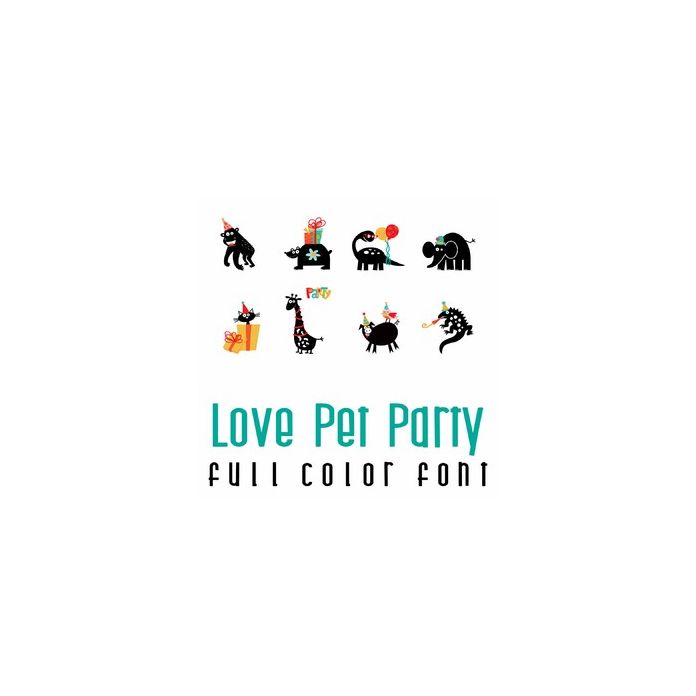
This fun full color doodlebat font features 26 party animals ready to celebrate. Perfect for cards, crafts, gifts, decor, scrap book pages, planner stickers and more!